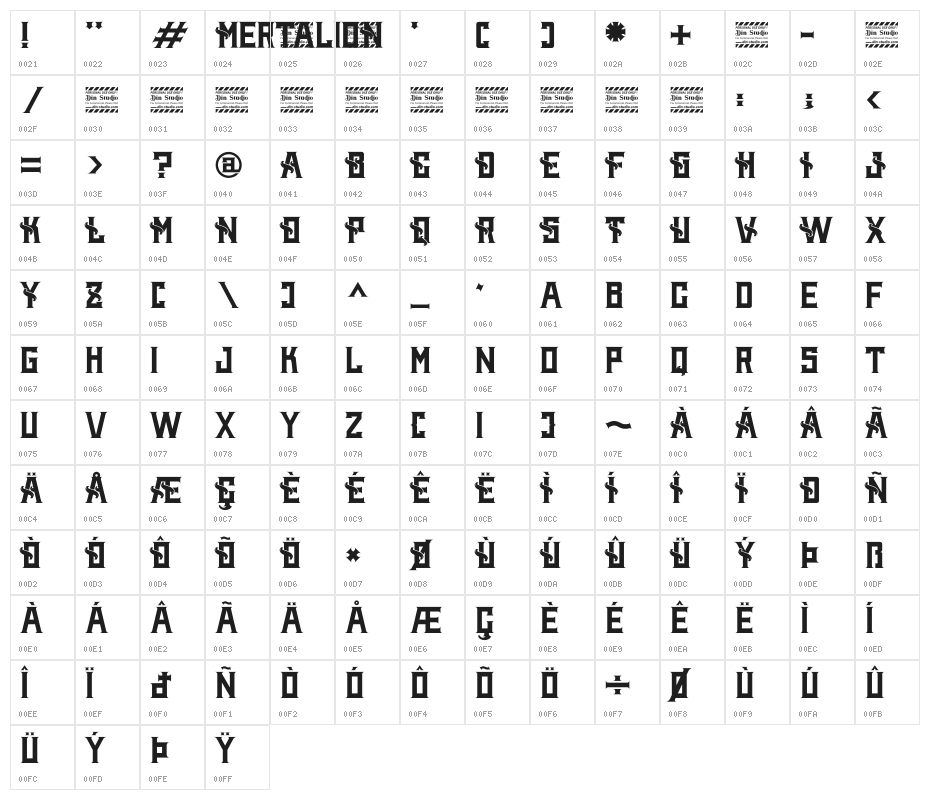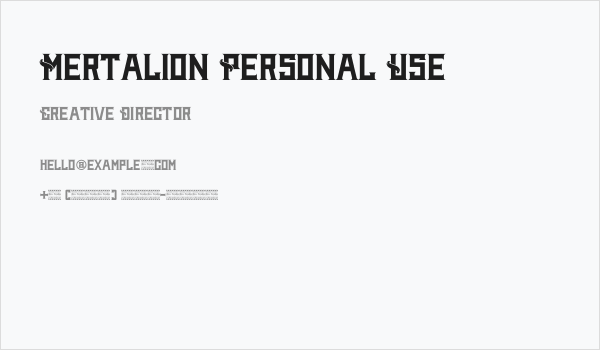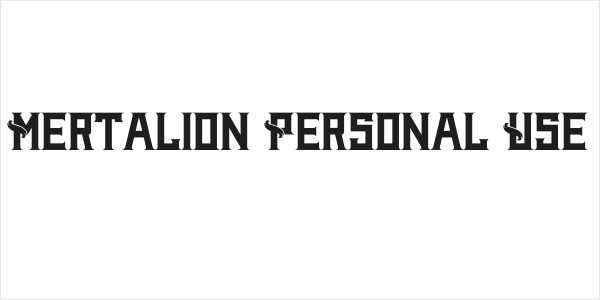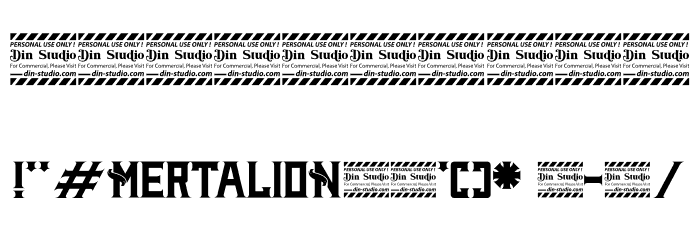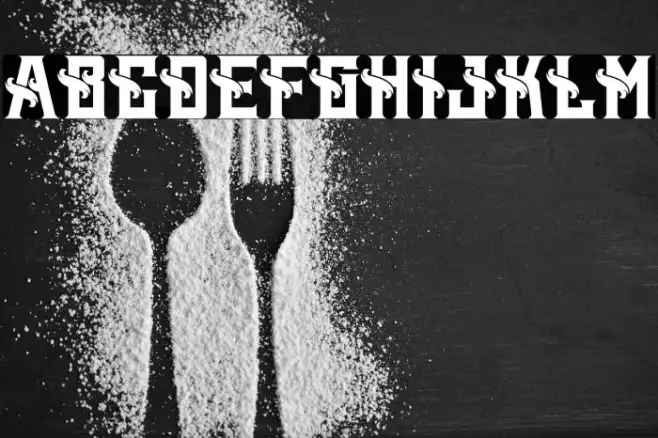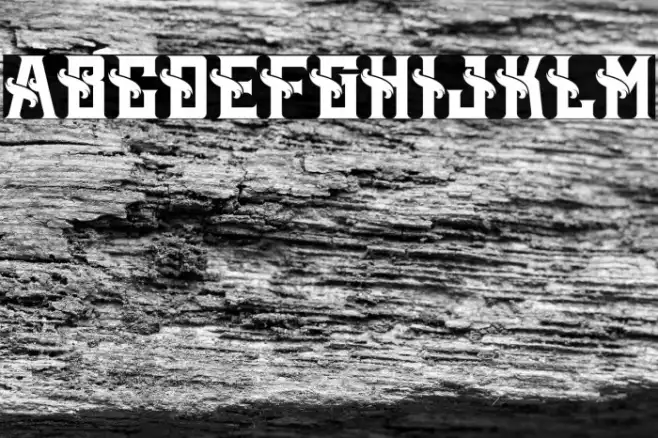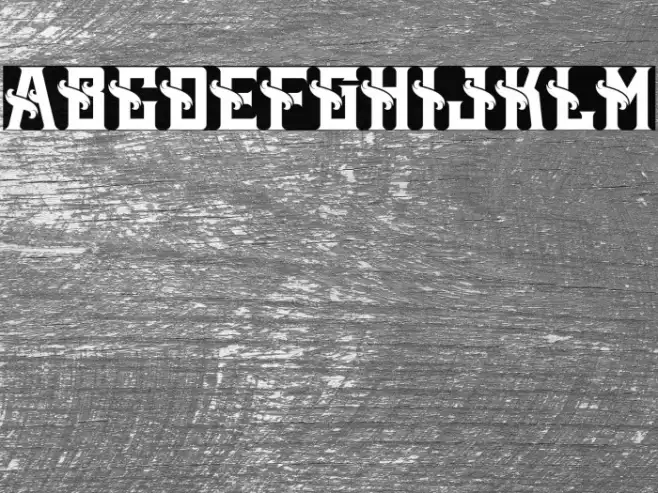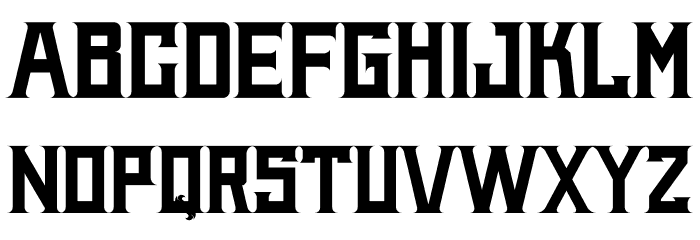
Mertalion Personal Use Font
Mertalion Personal Use Description
This font features a bold and striking design with a unique decorative flair. The uppercase letters are characterized by sharp angles and a distinct geometric style, giving them a modern and edgy appearance. The lowercase letters maintain a similar aesthetic, ensuring consistency throughout the typeface. The numbers and special characters are crafted with the same attention to detail, making them stand out. This font's boldness and unique design elements make it ideal for projects that require a strong visual impact.
| Proposed Projects | Ideal for branding, posters, album covers, and any project needing a bold statement. |